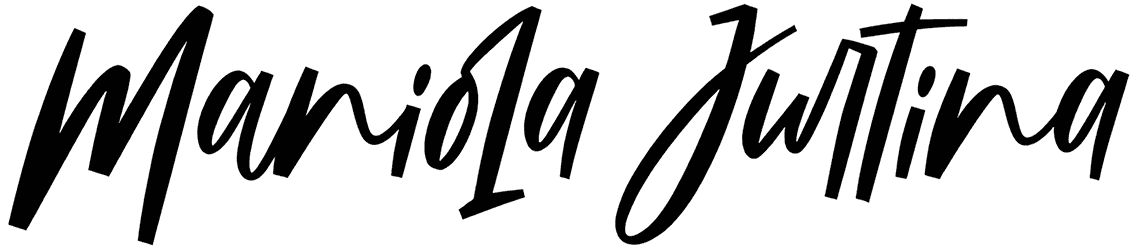
Maniola Jurtina Font
Maniola Jurtina is a versatile tool that provides you with the simplest yet most effective way to implement projects quickly. This handwritten font is like the handwriting of ordinary people, and that’s why it’s a bit difficult to read.
But for the implementation of tattoos, product packaging, and writing on the t-shirt can create a good appearance. Natural loops and curves in this marker font provide you with bold solutions to make your ideas come true.